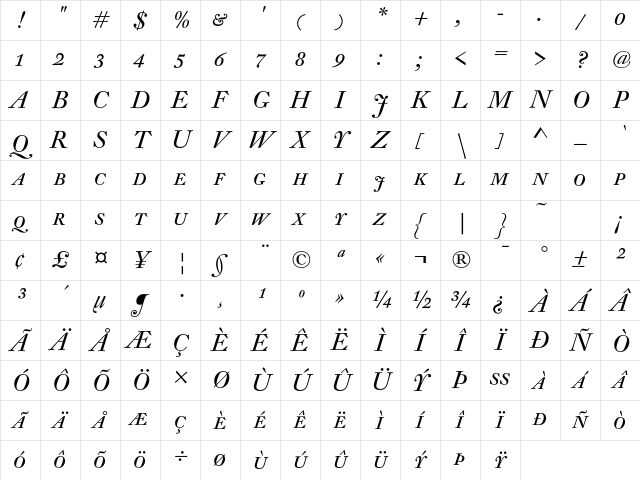
DTLFleischmannDCaps Italic
DTLFleischmannDCaps Family
Design Context for DTLFleischmannDCaps
DTLFleischmannDCaps is a composed and adaptable typeface that performs quietly and consistently across a wide range of design contexts. The slanted form adds forward momentum and visual energy.